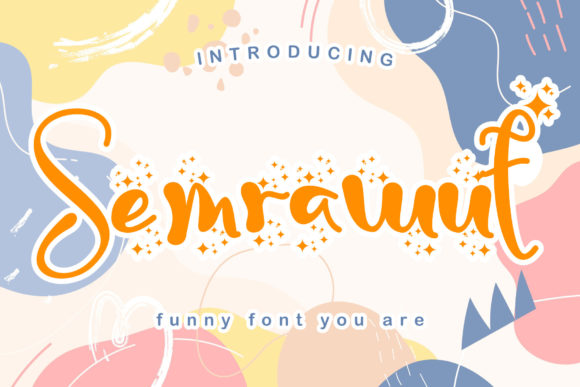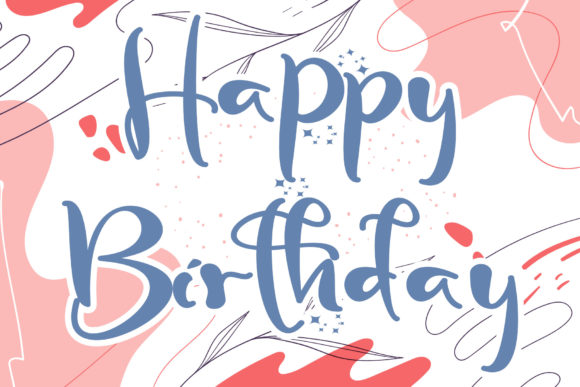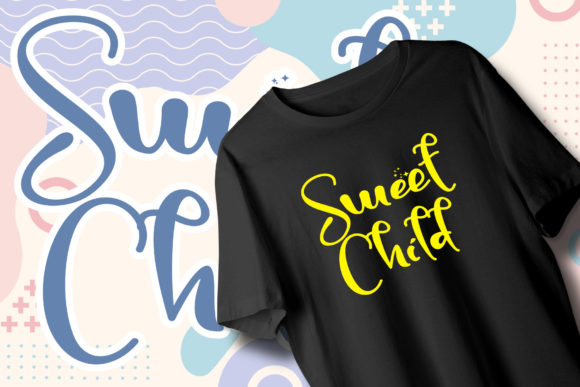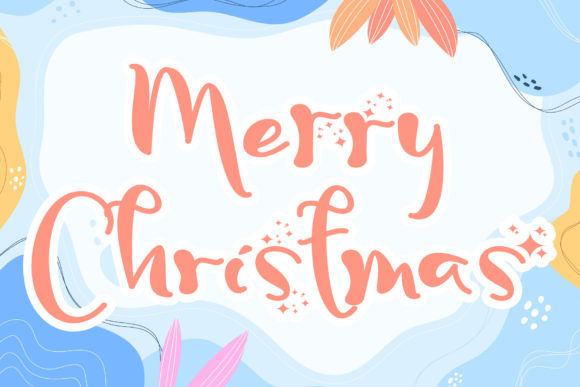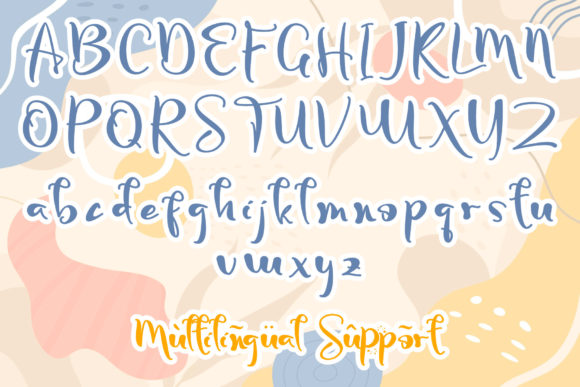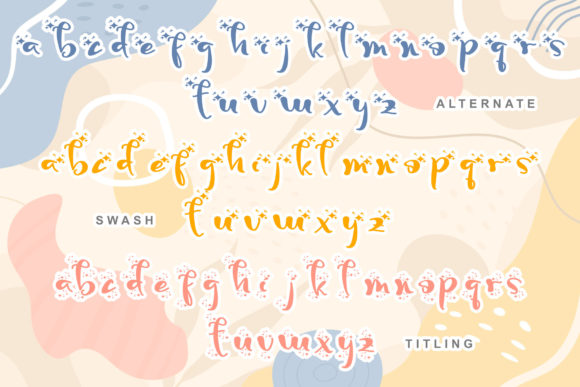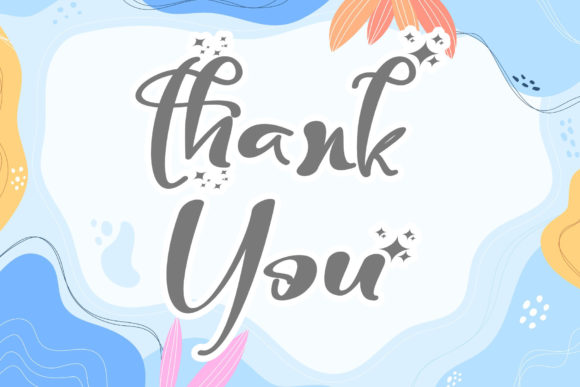
Semrawut Font
About Semrawut Font
Semrawut is a lovely and timeless handwritten font. It is the best choice for creating eye catching logos, branding and quotes. This font is PUA encoded which means you can access all of the glyphs and swashes with ease!